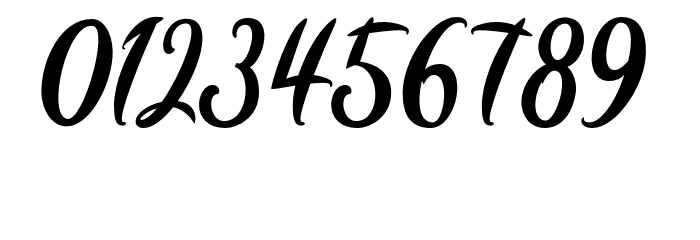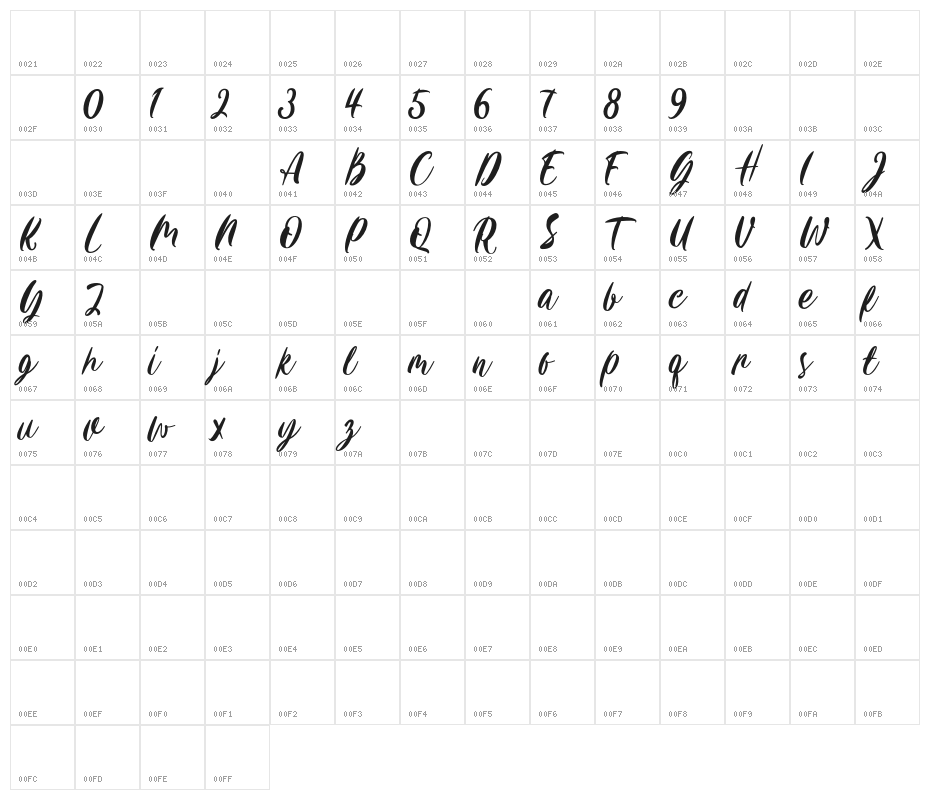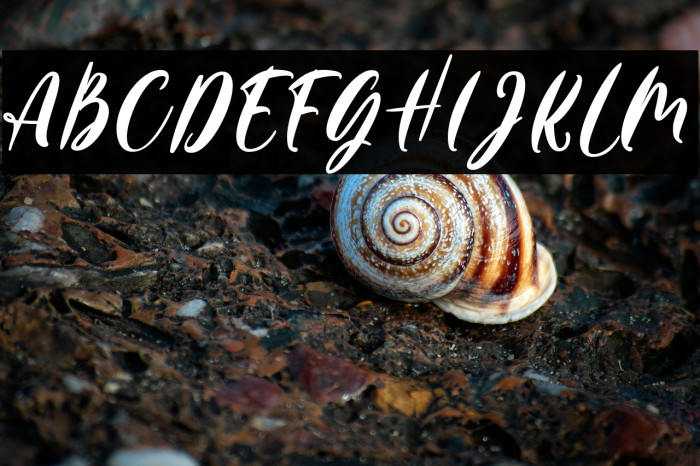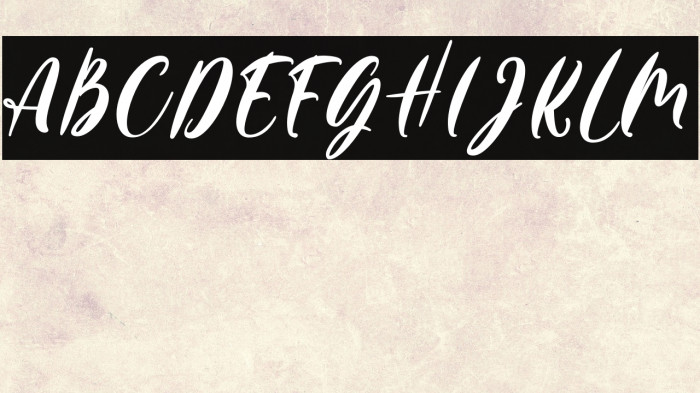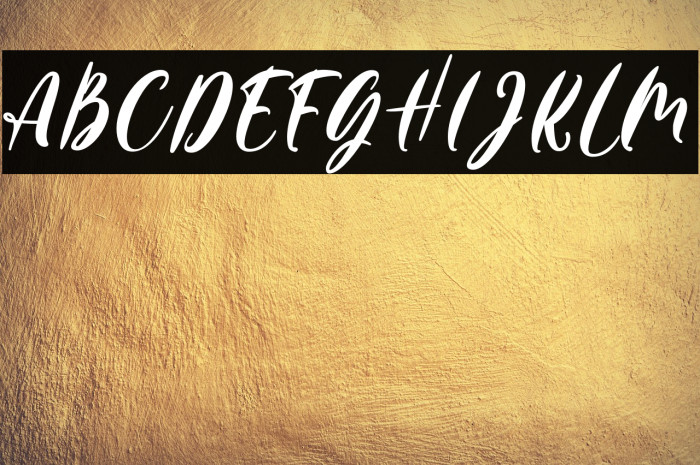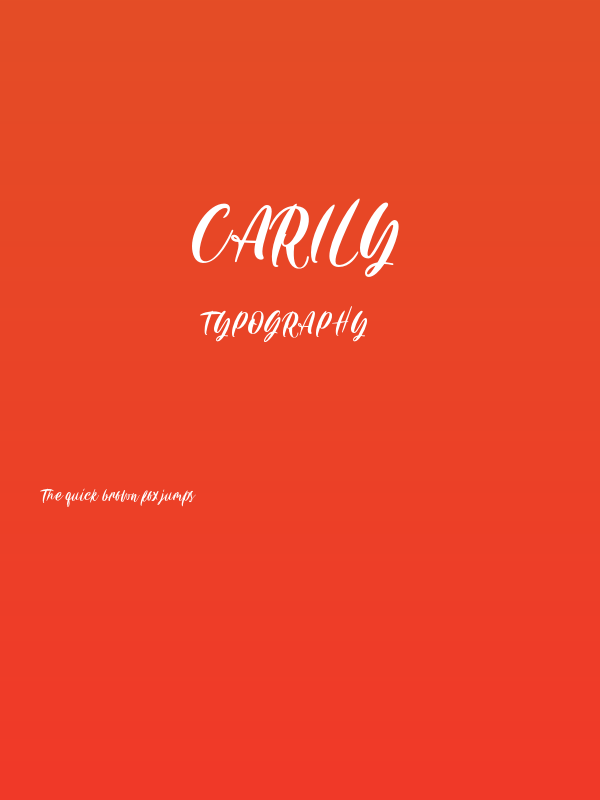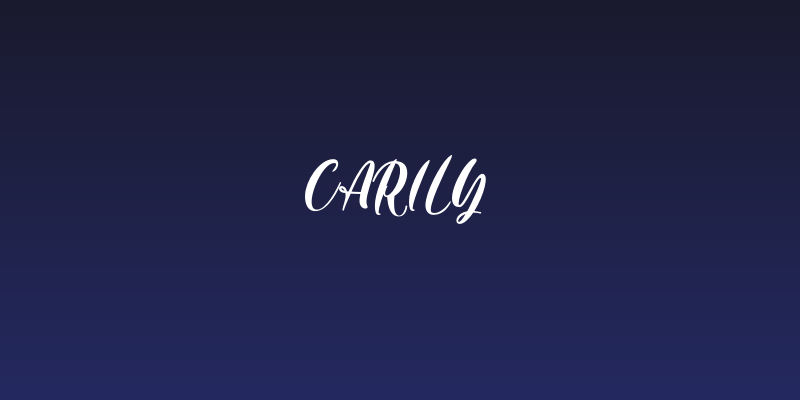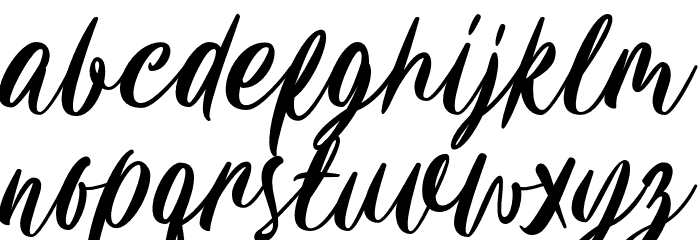
Carily Font
Carily Description
This font features a dynamic and fluid script style, characterized by its elegant, flowing curves and a sense of movement. The letters are interconnected, creating a seamless and harmonious appearance. The strokes vary in thickness, adding a lively and expressive quality to the text. The uppercase letters are bold and prominent, while the lowercase letters maintain a consistent rhythm and balance. The numerals are designed to match the overall aesthetic, with a playful yet sophisticated look. This font is perfect for projects that require a personal touch or a sense of elegance and creativity.
| Proposed Projects | Ideal for wedding invitations, branding, greeting cards, and artistic projects. |